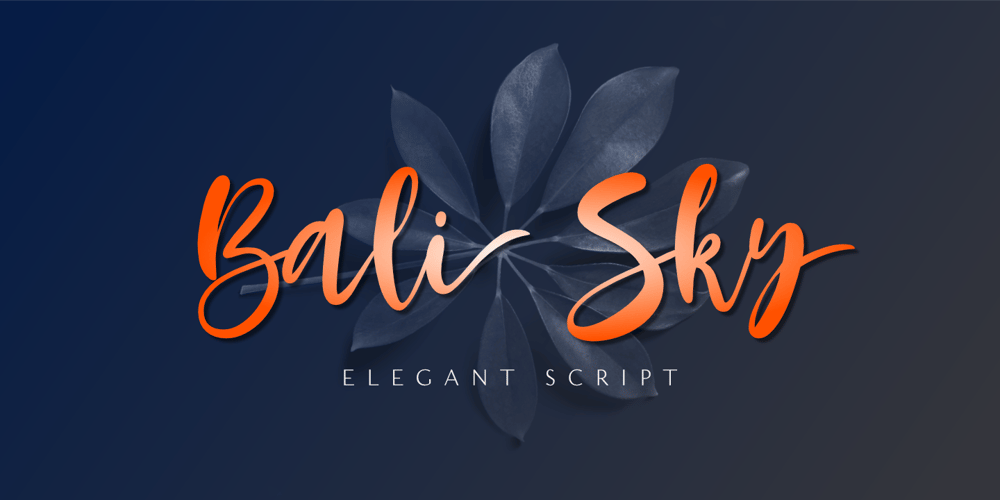
Bali Sky Font Family was designed by Aldy Sidik and published by Epiclinez. Bali Sky contains 1 styles and family package options. Bali Sky is a stylish and elegant script font. It looks stunning on wedding invitations, thank you cards, quotes, greeting cards, logos, business cards, and every other design which needs a handwritten touch.The font Bali Sky contains 229 glyphs. Supporting more than 66 languages, from English to Zulu. This font is PUA encoded which means you can access all of the glyphs and swashes with ease! So what’s included: Basic Latin A-Z & a-z. Numbers, symbols, and punctuations Ligatures Stylistic sets Multilingual Support. Accented Characters : ÀÁÂÃÄÅÆÇÈÉÊËÌÍÎÏÑÒÓÔÕÖØŒŠÙÚÛÜŸÝŽàáâãäåæçèéêëìíîïñòóôõöøœšùúûüýÿžß Thank You